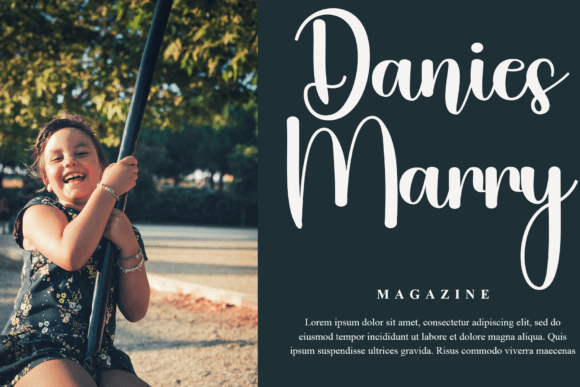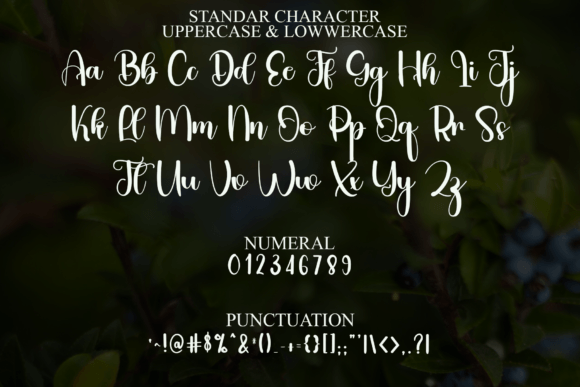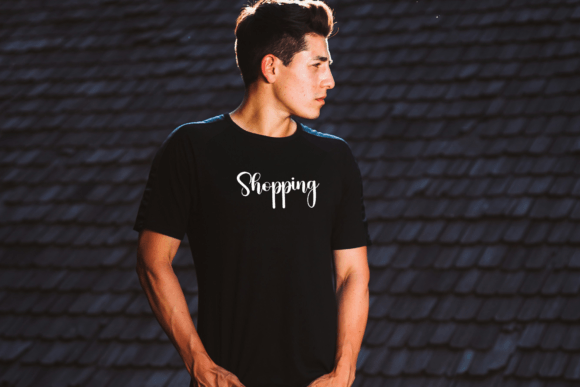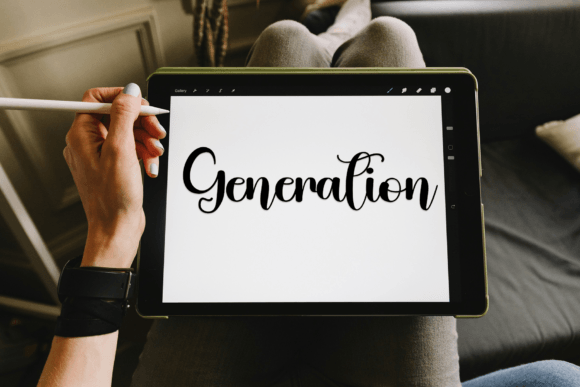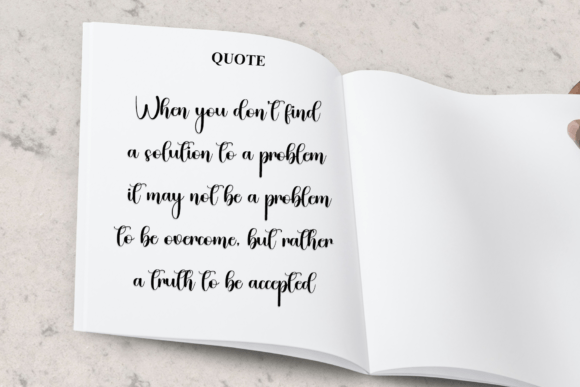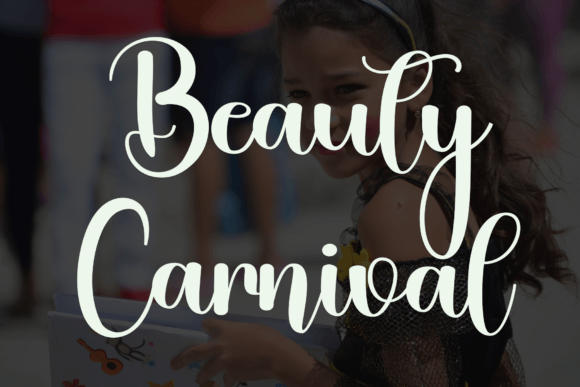
Introducing Chilhood Font: Elevate Your Designs with Elegance and Sophistication
Are you a designer or crafter looking for a font that exudes class, elegance, and modernity? Look no further than Chilhood Font, a beautiful and refined handwritten font that is sure to take your designs to the next level. With its sophisticated and stylish aesthetic, Chilhood Font is perfect for a wide range of applications, from logos and branding to invitations, stationery, wedding designs, social media posts, and more.
What Makes Chilhood Font So Special?
Chilhood Font boasts a unique and eye-catching design that is both elegant and modern. Its refined handwritten style gives it a personal and approachable feel, making it perfect for designs that require a touch of sophistication and whimsy. Whether you’re creating a logo, invitation, or social media post, Chilhood Font is sure to make a lasting impression.
One of the standout features of Chilhood Font is its PUA (Private Use Area) encoding. This means that you can access a wide range of glyphs and ligatures with ease, giving you even more creative freedom and flexibility when it comes to designing with this font. With Chilhood Font, you can add intricate details and flourishes to your designs, taking them from ordinary to extraordinary.
Endless Design Possibilities with Chilhood Font
So, what can you create with Chilhood Font? The possibilities are endless! Here are just a few ideas to get you started:
- Invitations and Stationery: Add a touch of elegance and sophistication to your invitations, greeting cards, and stationery.
- Wedding Designs: Make your wedding designs truly unforgettable with Chilhood Font’s beautiful and refined handwritten style.
- Social Media Posts: Elevate your social media presence with eye-catching graphics and typography that showcase your brand’s personality.
- Crafting and DIY Projects: Add a personal touch to your crafting and DIY projects, from scrapbooking to card making.
Why Choose Chilhood Font?
With so many fonts on the market, why choose Chilhood Font? Here are just a few reasons why designers and crafters love this beautiful handwritten font:
- Unique and Eye-Catching Design: Chilhood Font’s refined handwritten style sets it apart from other fonts on the market.
- Ease of Use: With PUA encoding, you can access a wide range of glyphs and ligatures with ease, making it simple to create stunning designs.
- Versatility: Chilhood Font is perfect for a wide range of applications, from logos and branding to invitations and social media posts.
- Elegant and Modern: Chilhood Font’s sophisticated aesthetic makes it perfect for designers and crafters who want to add a touch of elegance and modernity to their designs.
Get Creative with Chilhood Font Today!
Ready to take your designs to the next level with Chilhood Font? With its beautiful and refined handwritten style, PUA encoding, and endless design possibilities, this font is sure to become a favorite in your design arsenal. So why wait? Get creative with Chilhood Font today and discover a world of elegance, sophistication, and design possibilities!